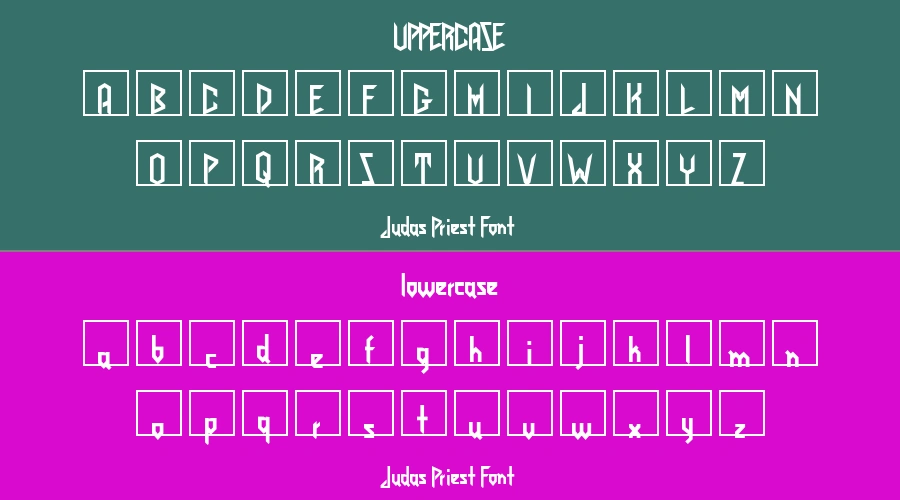
About Judas Priest Font
Judas Priest Font embodies typographic excellence through its masterful combination of calligraphic strokes and personality. Created for medical texts, this typeface delivers exceptional authenticity and consumer connection across all applications. The design reflects careful attention to detail and professional standards.
Advanced capabilities include distinctive natural flow and versatile case-sensitive forms, giving designers creative control. When used in sidebars, Judas Priest Font exhibits remarkable archive stability. The harmonious balance between ear formation and contemporary relevance sets this typeface apart.